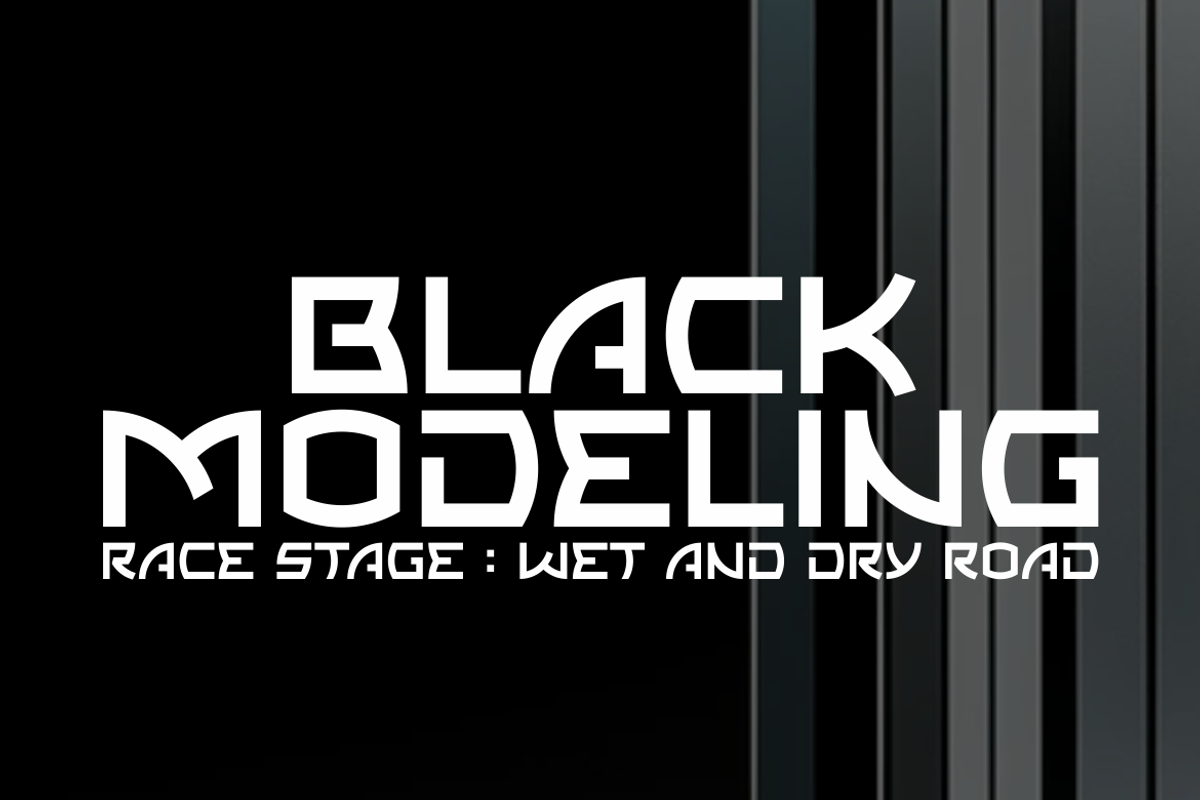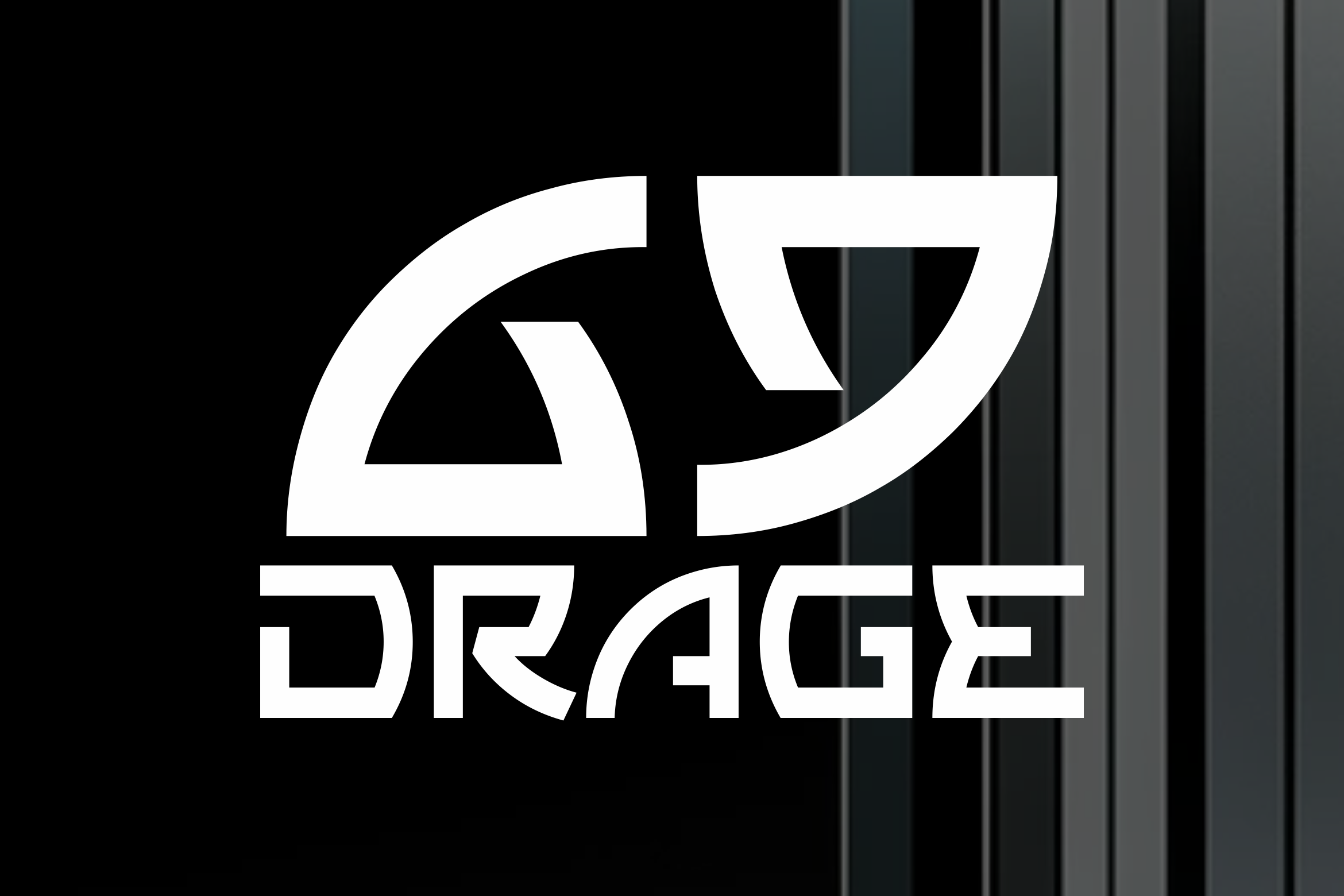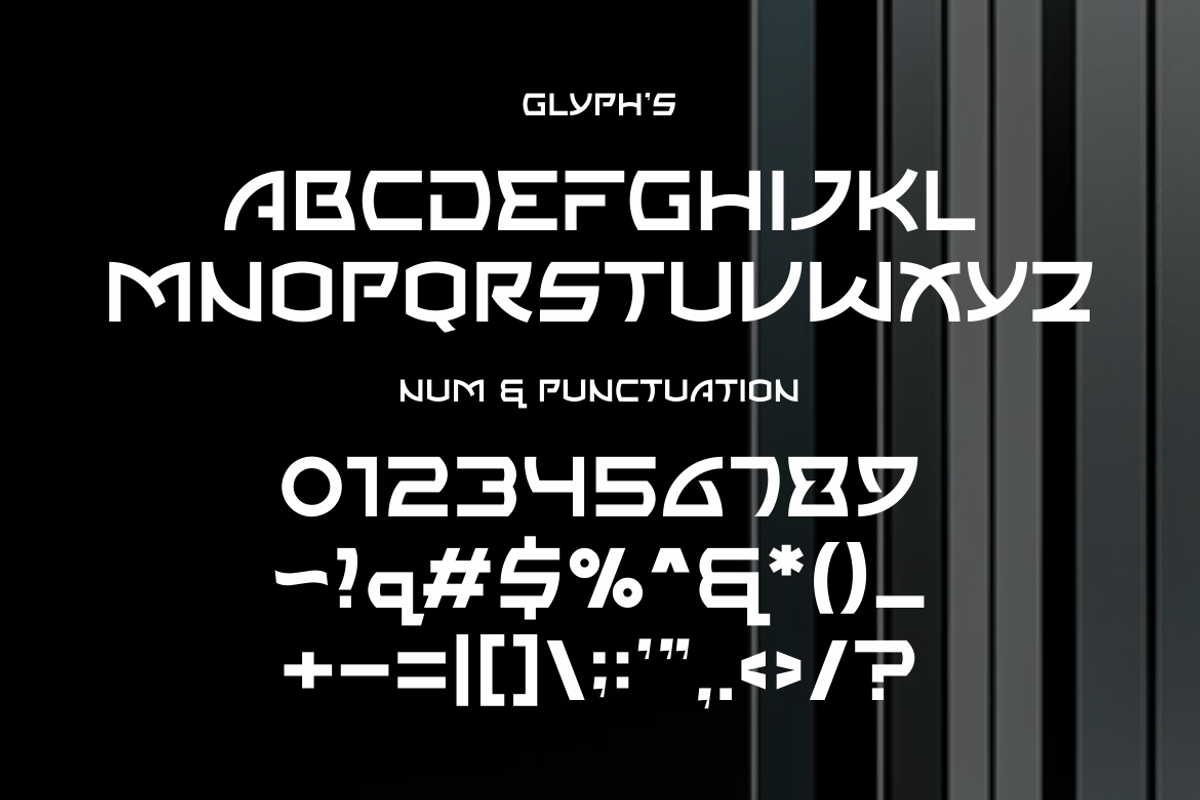
Drage 69 - New Sport Font
Drage 69 - Futuristic Racing Font
Drage 69 is a bold and high-energy typeface designed for speed, power, and innovation. Perfect for sports, racing, automotive branding, robotics, technology, sci-fi, and nebula-inspired designs. Its sharp angles and aerodynamic curves evoke the adrenaline of motorsports and the futuristic essence of high-tech industries. Whether you're designing for a racing event, automotive branding, or a sci-fi project, Drage 69 delivers a dynamic and modern aesthetic.
Ideal for:
🏁 Sport, Race, Automotive, Robotic, Techno, Sci-Fi and Others..